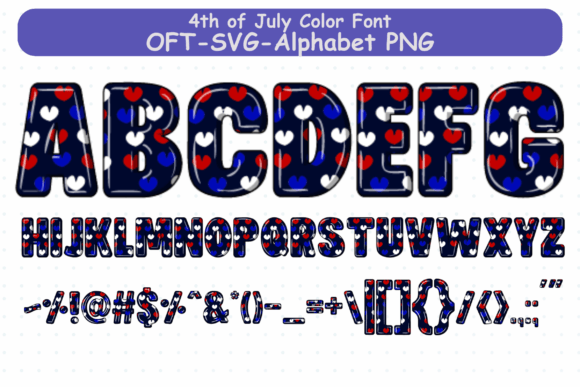
Introducing the 4th of July Font: A Patriotic and Playful Addition to Your Designs
Are you looking for a font that embodies the spirit of freedom and patriotism? Look no further than the 4th of July USA Patriotic Alphabet font! This cute and colorful font is perfect for any children’s activity or school project, and its playfulness and authenticity are sure to make your designs come alive.
What Makes This Font So Special?
The 4th of July Font is a chunky lettered font that is both fun and vibrant. Its bold and colorful design makes it perfect for creating eye-catching designs that are sure to stand out. Whether you’re working on a children’s activity sheet, a school project, or a craft, this font is sure to add a touch of patriotism and whimsy.
Compatibility and Uses
- Chunky lettering that’s perfect for creating eye-catching designs
- Playful and authentic design that’s sure to add a touch of patriotism to your designs
The 4th of July Font is perfect for designers and crafters alike. Whether you’re working on a commercial project or a personal craft, this font is sure to add a touch of whimsy and patriotism. Here are just a few ideas for using the 4th of July Font:
- Create custom party invitations and decorations for the 4th of July
- Design fun and educational activity sheets for kids
- Make custom signs and banners for patriotic events
- Add a touch of patriotism to your social media graphics and posts
- Experiment with different colors and design elements to create a unique look
- Use the font in combination with other patriotic elements, such as stars and stripes
- Don’t be afraid to get creative and try out new and unusual design ideas